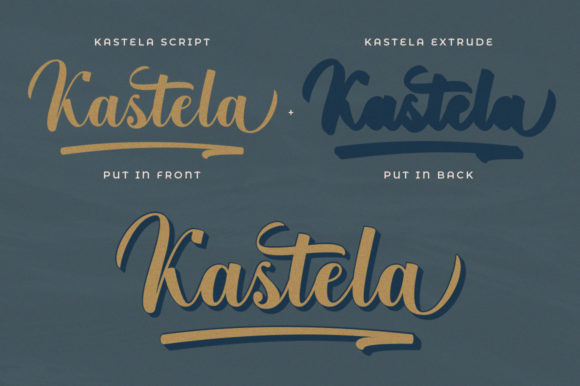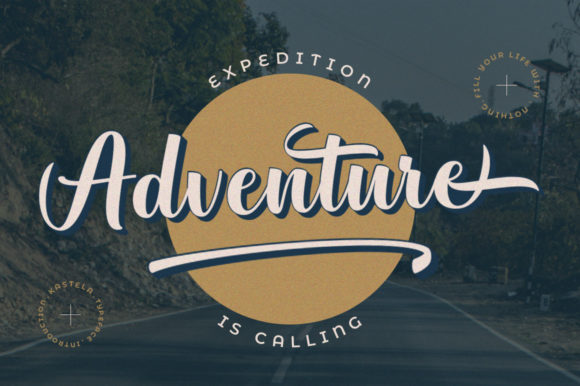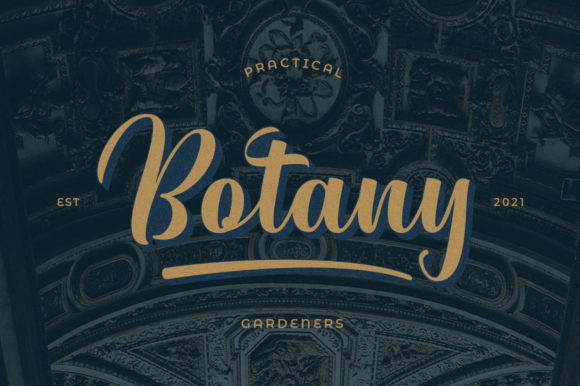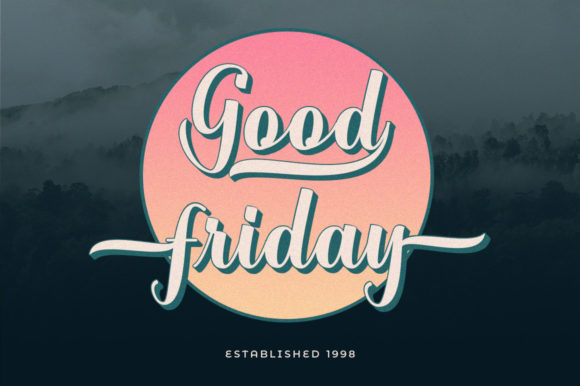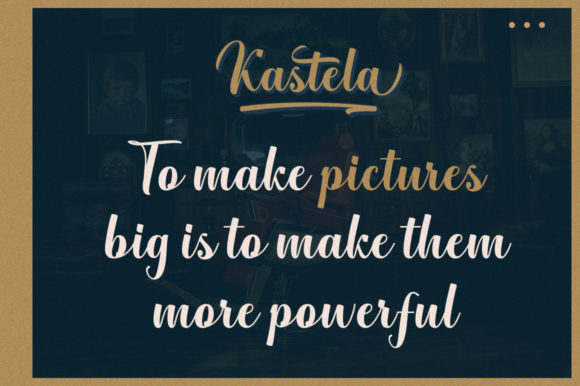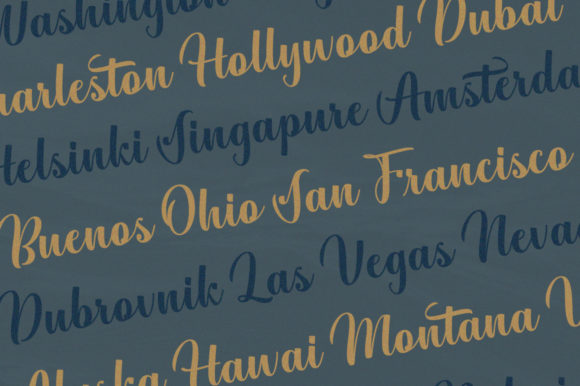
Introduction to Kastela Font
As designers, we’ve all been there – staring at a blank canvas, searching for the perfect font to bring our creative project to life. The moment of truth arrives when we discover a font that captures the essence of our vision. For those seeking a retro touch, look no further than the stunning Kastela Font. This gorgeous and bold handwritten font is sure to transport your designs back in time, adding a nostalgic character that’s hard to resist.
With its strong, confident, and dynamic feel, Kastela Font is a design resource that’s about to become your new best friend. Whether you’re working on a high-quality logo, creating a stunning headline, or simply need a unique touch for your next project, this font is sure to deliver. And the best part? It’s PUA encoded, making it a breeze to access all of its amazing glyphs and ligatures with ease.
Kastela Font
- Features a unique, elegant design with clean lines and subtle details, making it suitable for a variety of creative applications.
Honest Review: Kastela Font
As a designer, I’m always on the lookout for high-quality fonts that can elevate my creative project. Recently, I stumbled upon the Kastela Font, and I must say it’s been a game-changer. With its sleek and modern design, it’s perfect for any design resource that requires a touch of sophistication.
What works well about the Kastela Font is its versatility. It comes in a range of weights and styles, making it easy to use across different design projects. I particularly like the fact that it has a transparent background, which allows me to layer it with other design elements seamlessly. ✨
- High quality: The font is designed with precision and care, resulting in a high-quality output that’s sure to impress.
- Wide range of styles: With its various weights and styles, the Kastela Font offers endless possibilities for creative expression.
However, there are a few limitations to consider. ⚠️ The font may not be suitable for very small text sizes, and the transparent background can sometimes make it difficult to read against certain backgrounds.
Overall, I’m thoroughly impressed with the Kastela Font. Its high-quality design, versatility, and free download make it an excellent choice for any designer looking to elevate their creative project. With a few minor tweaks, it has the potential to become a staple in any design resource collection.
The Kastela Font is perfect for various creative projects, including logos, brochures, business cards, and social media graphics. Its high-quality design makes it suitable for both personal and commercial use.